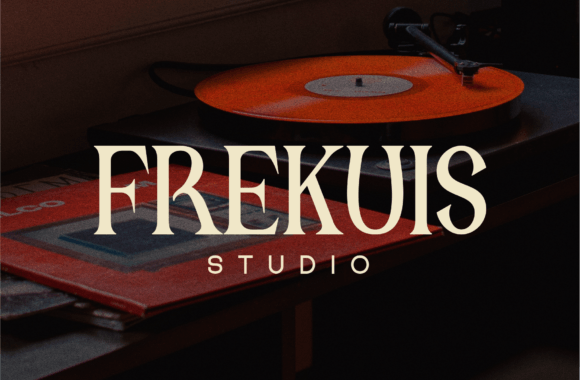
Romine Font: Elevate Your Design with Elegance and Sophistication
In the world of typography, fonts play a crucial role in conveying the tone and personality of a brand or design. When it comes to making a strong yet refined visual impact, the right font can make all the difference. Introducing Romine, a serif display font that exudes elegance and grace, designed to elevate your design to new heights.
The Distinctive Character of Romine Font
Romine’s distinctive character lies in its intricate and well-balanced letterforms, which combine classical serif elements with a modern sensibility. Each letter is meticulously crafted to convey a sense of sophistication and timeless beauty, making Romine an excellent choice for projects that require a touch of luxury and distinction.
A Perfect Blend of Classic and Modern Elements
Romine’s design is rooted in traditional serif typography, yet it boasts a modern twist that sets it apart from more traditional fonts. The font’s classic serif elements provide a sense of familiarity and stability, while its modern sensibility adds a touch of freshness and sophistication.
This blend of old and new makes Romine an incredibly versatile font, suitable for a wide range of design applications. Whether used in branding, editorial design, or high-end packaging, Romine brings an air of refinement and style that elevates the overall aesthetic of any design.
Crafted with Precision and Attention to Detail
Each letter in the Romine font is meticulously crafted to ensure that it meets the highest standards of typographic excellence. The font’s intricate details and precise lines create a sense of luxury and sophistication, making it perfect for designs that require a high level of elegance and refinement.
From the subtle curves of the serifs to the carefully balanced letterforms, every aspect of Romine’s design has been carefully considered to create a font that is both beautiful and functional.
Use Romine Font in Various Design Applications
Romine’s versatility and elegance make it an excellent choice for a wide range of design applications. Here are just a few examples of how you can use Romine to elevate your design:
- Branding: Use Romine to create a sophisticated and luxurious brand identity that sets your company apart from the competition.
- Editorial Design: Add a touch of elegance and refinement to your editorial designs, such as magazines, newspapers, and books.
- High-End Packaging: Use Romine to create luxurious and eye-catching packaging that reflects the high quality of your product.
Why Choose Romine Font?
With so many fonts available, why choose Romine? Here are just a few reasons why Romine stands out from the crowd:
- Elegance and Sophistication: Romine’s intricate details and precise lines create a sense of luxury and sophistication that is hard to match.
- Versatility: Romine is suitable for a wide range of design applications, from branding and editorial design to high-end packaging.
- Timeless Beauty: Romine’s classic serif elements and modern sensibility combine to create a font that is both timeless and contemporary.
In conclusion, Romine is a serif display font that exudes elegance and sophistication, making it an excellent choice for designs that require a touch of luxury and distinction. With its intricate details, precise lines, and versatile design, Romine is sure to elevate your design to new heights.
Whether used in branding, editorial design, or high-end packaging, Romine brings an air of refinement and style that sets it apart from other fonts. So why settle for an ordinary font when you can use Romine to create a truly exceptional design?
- What is Romine font? Romine is a serif display font that exudes elegance and sophistication, designed to make a strong yet refined visual impact.
- What makes Romine unique? Romine’s distinctive character lies in its intricate and well-balanced letterforms, which combine classical serif elements with a modern sensibility.